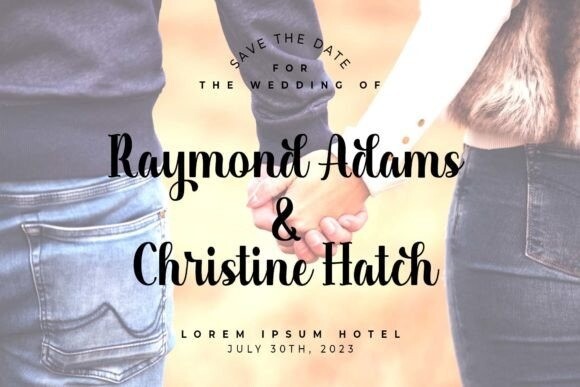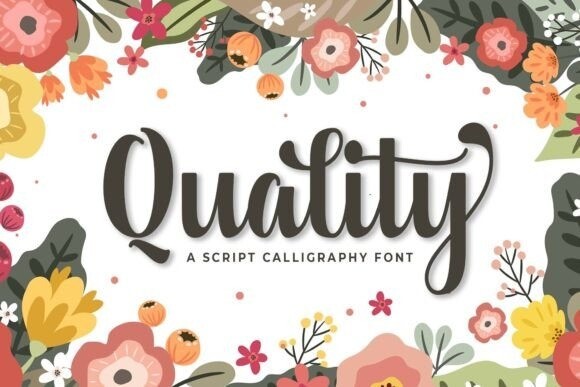
Quality Script Font
Designer: Doehantz Studio
Quality Script Font is a gorgeous and playful script font crafted to add tons of stylish character to your designs. This font is PUA encoded, which means you can access all of the glyphs and swashes with ease!
It can be used for logos, branding, invitations, stationery, wedding designs, social media posts, and much more!